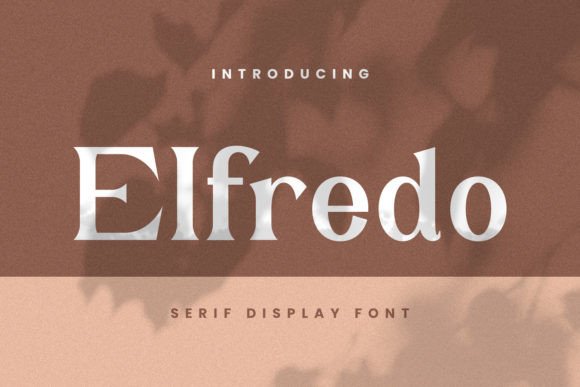
In a world saturated with visual noise, crafting designs that capture attention and resonate with audiences demands a unique touch. Allow us to introduce Elfredo, a font family designed to transport your creative visions to new heights. This meticulously crafted serif font exudes elegance, sophistication, and a timeless charm that will leave an unforgettable impression on your audience.
Elfredo's graceful curves and sharp serifs embody the essence of refined typography. With its inherent versatility, this font effortlessly adapts to a plethora of design projects, from captivating posters that demand attention to elegant logos that exude professionalism. Let Elfredo be your artistic partner, guiding you toward creating designs that captivate and inspire.
Unleash the boundless possibilities of Elfredo and watch your creative endeavors flourish. Whether it's a thought-provoking poster that conveys a powerful message or a stunning logo that embodies your brand's essence, this font will elevate your designs to new realms of excellence. Its timeless beauty transcends fleeting trends, ensuring that your creations remain relevant and impactful for years to come.
Immerse yourself in the world of Elfredo and unlock a treasure trove of design opportunities. This font is your gateway to crafting designs that resonate deeply with your audience, leaving a lasting impression that lingers in their minds long after they've encountered your work. Embrace the power of Elfredo and let your creativity soar.
So, why settle for ordinary when you can elevate your designs with Elfredo? Embark on a journey of creative exploration and discover the transformative power of this remarkable font. Let Elfredo be your muse, guiding you toward creating designs that ignite imaginations and leave an enduring legacy of excellence.